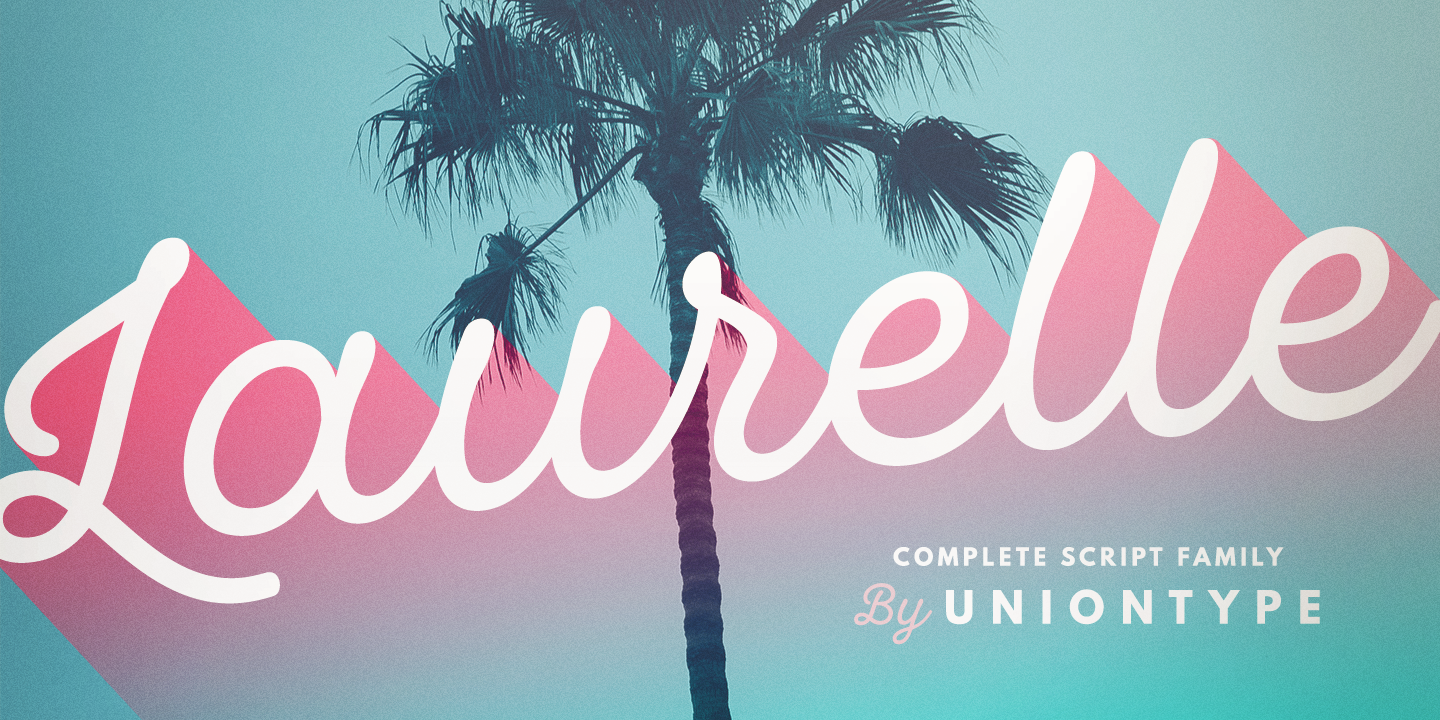
UT Laurelle Font is perfect for luxury fashion magazines, elegant beauty brand packaging, sophisticated jewelry advertisements, high-end spa signage, premium cosmetic labels, upscale boutique branding, refined wedding stationery, and exclusive design projects that require graceful typography with feminine elegance and luxurious sophistication.
This UT Laurelle Font is exciting because it embodies refined femininity with delicately crafted letterforms that flow like silk ribbons, featuring elegant curves and sophisticated character details that convey luxury and grace while maintaining perfect readability for premium brand applications requiring authentic feminine sophistication.
The UT Laurelle Font family includes elegant weights with luxury styling, complete character sets with graceful uppercase and lowercase letters, refined numerals, sophisticated punctuation, and decorative flourishes that provide comprehensive typography solutions for luxury and beauty design projects requiring authentic feminine aesthetics and premium appeal.
Perfect for creating distinguished luxury communications and feminine brand identities, UT Laurelle Font Free Download delivers the refined typography that transforms text into elegant expressions of feminine grace and luxurious sophistication. This distinctive typeface captures the essence of timeless femininity and premium quality, making it essential for projects celebrating female elegance, luxury branding, beauty industry excellence, and any design requiring graceful character with authentic feminine sophistication and premium luxury appeal that speaks to discerning audiences.